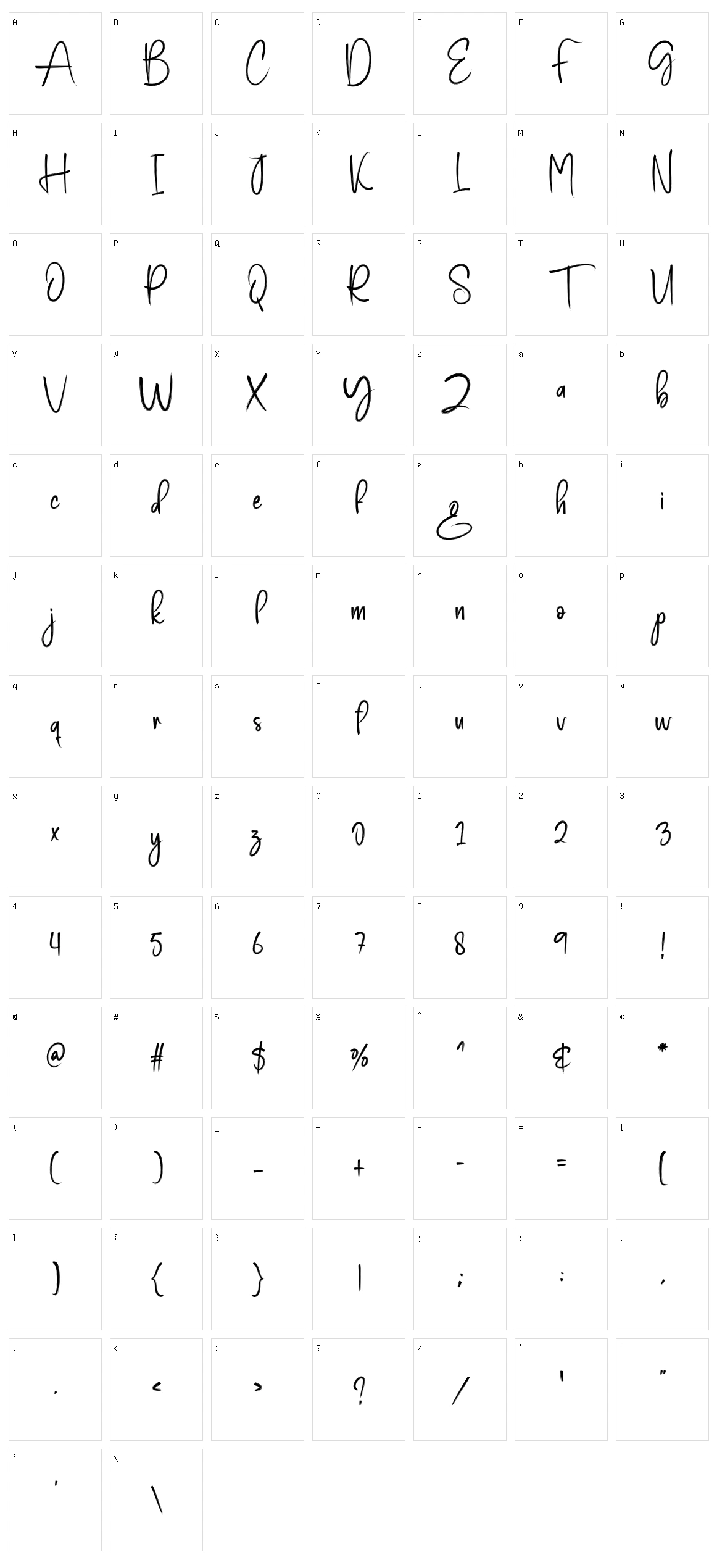
The free font Night Beauty is carefully designed by Scratchones, showcasing a thoughtful balance of creativity and usability and falls under the Script font style. When you download the ZIP file, it contains only 722.18 KB of font files, making it lightweight and quick to download. Please review the license details below to understand permitted usage and distribution rights. If license information is not available, we recommend using this font for personal projects only or contacting the author directly for commercial usage permissions.